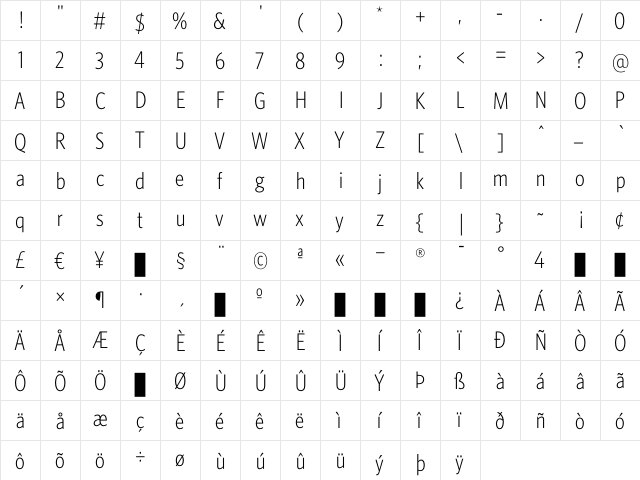
WhitneyCondensed Light Font Preview
Design Context for WhitneyCondensed Typeface
WhitneyCondensed takes a measured approach to typography — its balanced proportions and neutral character make it a reliable workhorse for both digital and print work. Its slender proportions lend an understated elegance to any composition. Its narrow stance lets it pack a punch even in space-constrained designs.
Pro Tip: Pair WhitneyCondensed with a font of contrasting weight or personality to build a more expressive typographic hierarchy.